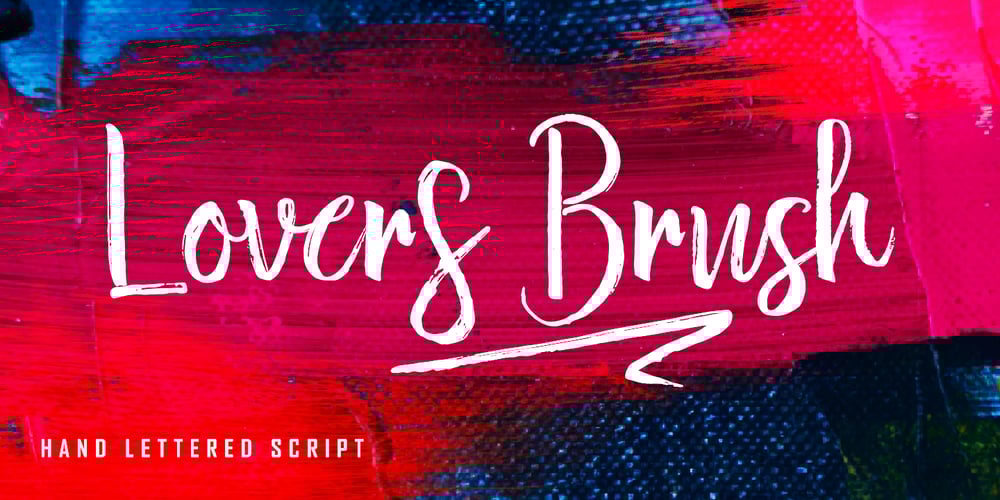
Lovers Brush Font Family was designed by Iqbal Amsar Hidayat and published by Bal Studio. Lovers Brush contains 2 styles and family package options. Lovers Brush is a textured brush font, a contemporary approach to design, naturally handmade and with underscores. It also has alternatives and ligatures that make your design more attractive.Suitable for use in title design such as clothing, invitations, tittle books, stationery designs, quotes, branding, logos, greeting cards, t-shirts, packaging designs, posters and more.